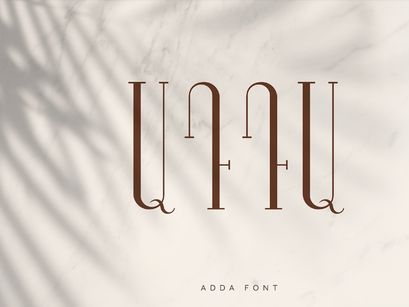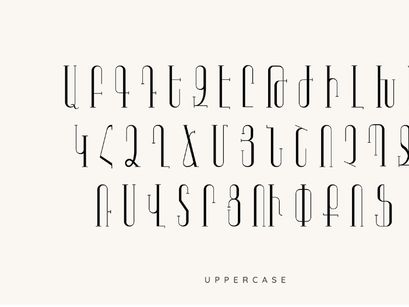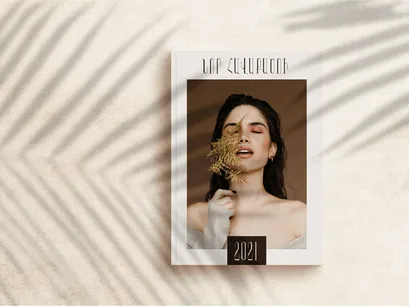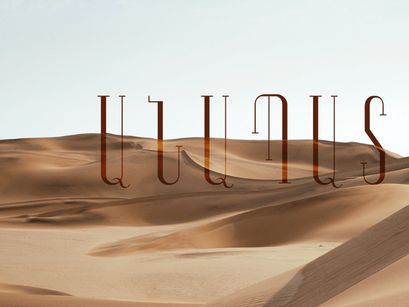
ADDA | Armenian Free Font
Adda
ADDA by Lilit Geghamyan (https://dribbble.com/lilit) is an Armenian serif typeface. The font includes uppercase letters, numerals, punctuations. Created for poster, web design, branding, editorial design, magazines, and some other works. FREE for commercial and personal use.